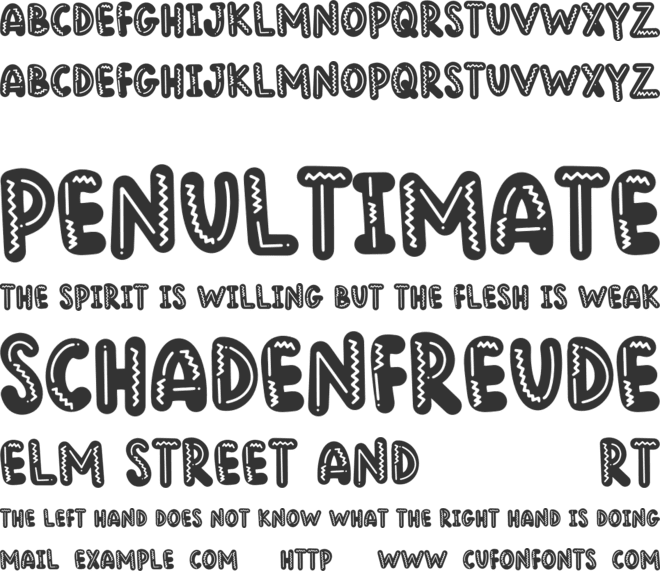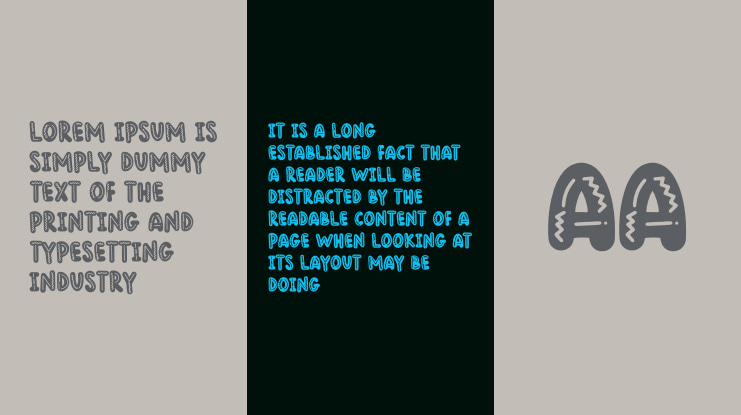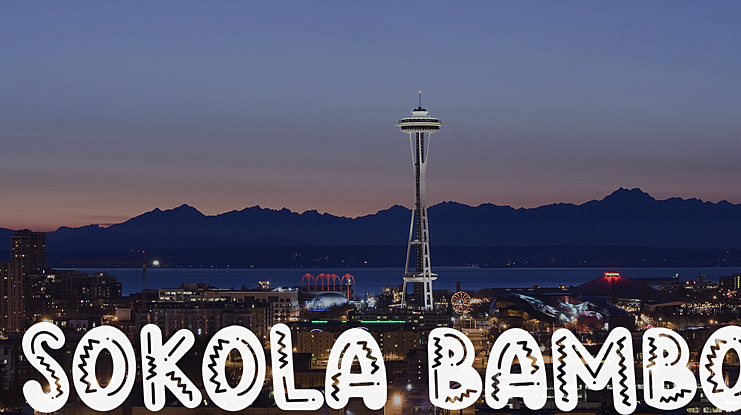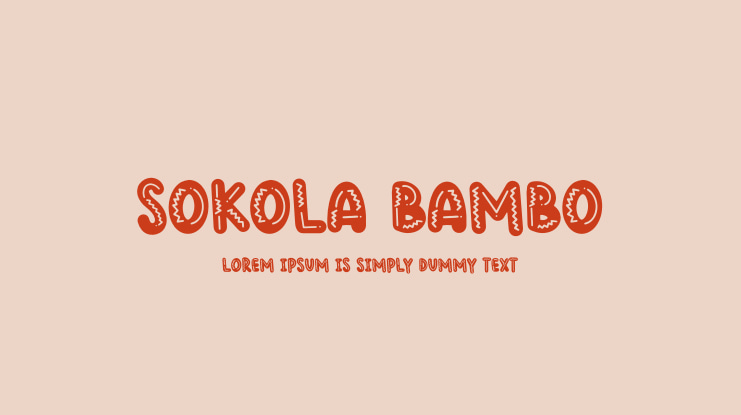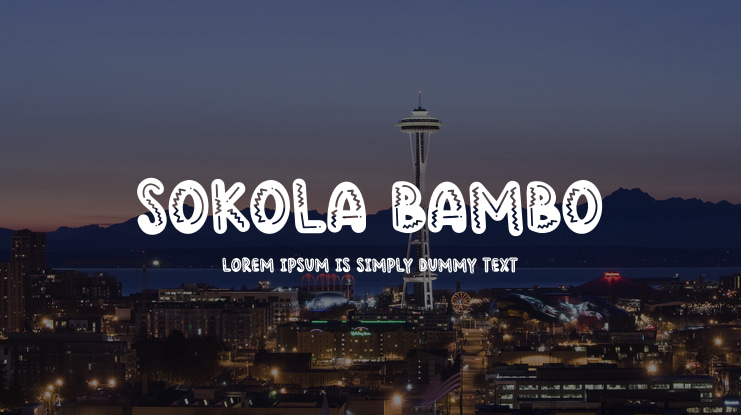
Sokola Bambo Font
Sokola Bambo is a fun display typeface. It will lift your design and add a cheeky touch to each of your creations. Use this font for your designs and explore its endless possibilities.